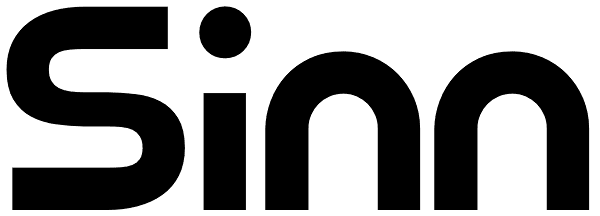
Sinn
Sure, there are plenty of strong, round, sans serif fonts out there. But how many are this strong, this round, and named for one of the shortest German words commonly used in the philosophy of language? That's right: not very many. Try Sinn on for...
Sinn